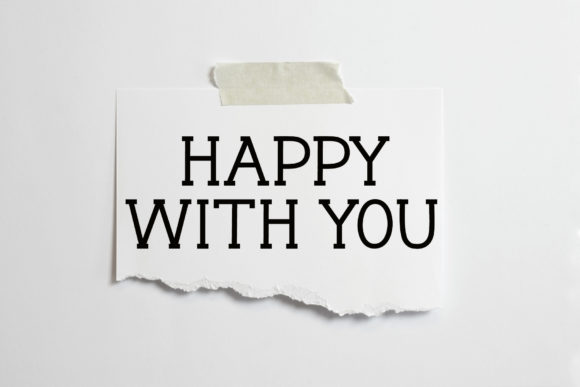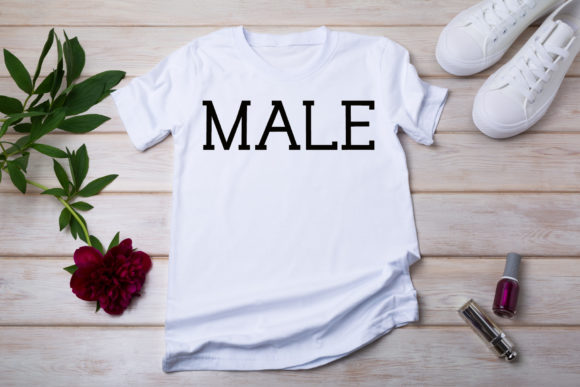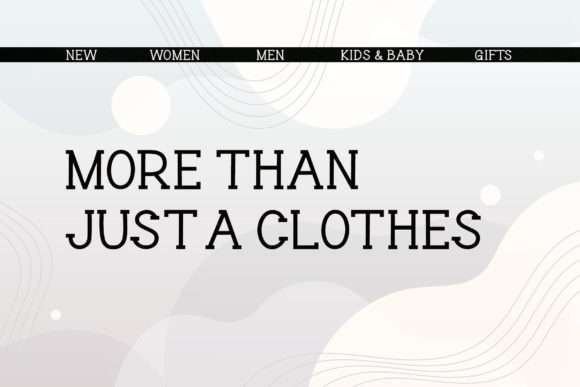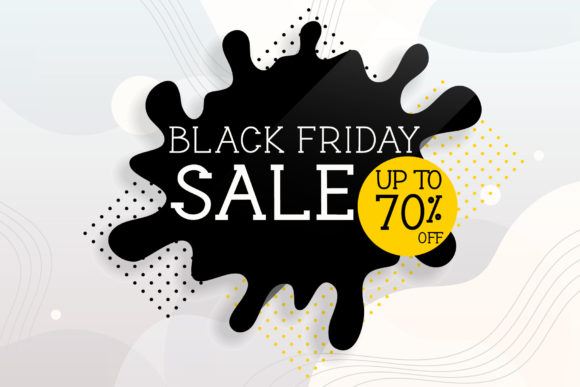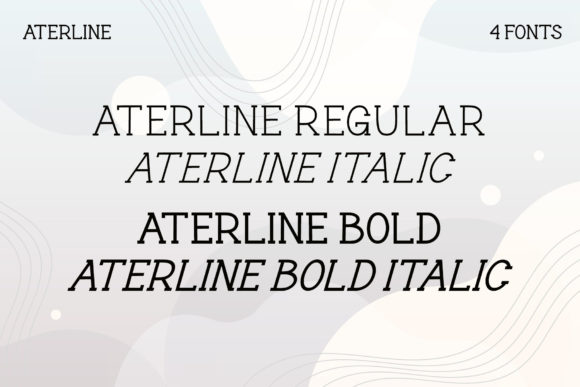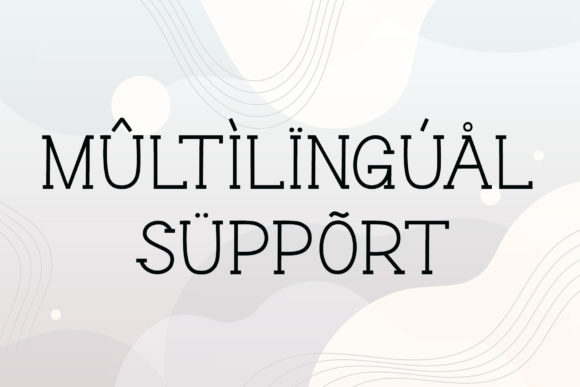
Aterline Font: Elevate Your Crafting Ideas with Elegance
In the world of design, typography plays a crucial role in conveying messages, expressing creativity, and capturing attention. For crafters, designers, and DIY enthusiasts, finding the perfect font can make all the difference in transforming a project from ordinary to extraordinary. This is where Aterline Font comes into play – a simple yet elegant slab serif font designed to elevate a wide range of crafting ideas.
What is Aterline Font?
Aterline is a beautifully crafted slab serif font that exudes simplicity and elegance. Its clean lines, subtle curves, and sturdy serifs make it an excellent choice for various design projects, from cards and branding to labels and more. The font’s versatility allows it to seamlessly adapt to different contexts, ensuring that your creations stand out with a touch of sophistication.
Key Features of Aterline Font
- Simple yet Elegant: Aterline’s design strikes the perfect balance between simplicity and elegance, making it suitable for a wide range of projects.
- Slab Serif: The font’s slab serif style adds a touch of modernity and sophistication, setting it apart from traditional serif fonts.
- Versatile: Aterline can be used confidently in various crafting ideas, including cards, branding, labels, and more.
- Easy to Read: The font’s clear and clean design ensures excellent readability, making it perfect for both digital and print applications.
How to Use Aterline Font in Your Projects
Aterline Font can be incorporated into a variety of projects, including:
- Card Making: Add a touch of elegance to your greeting cards, invitations, and thank-you cards with Aterline.
- Branding: Use Aterline as a logo font or in your brand’s marketing materials to convey a sense of sophistication and professionalism.
- Label Design: Create eye-catching labels for your products, gifts, or storage containers with Aterline’s clean and modern design.
- Digital Design: Incorporate Aterline into your digital projects, such as social media graphics, blog posts, and website headers, to add a touch of elegance.
Tips for Getting the Most Out of Aterline Font
To maximize the impact of Aterline Font in your projects, consider the following tips:
- Experiment with Colors: Pair Aterline with a range of colors to create unique and eye-catching combinations.
- Mix and Match: Combine Aterline with other fonts to create visually appealing contrast and add depth to your designs.
- Play with Sizes: Use Aterline in different sizes to create visual hierarchy and emphasize key messages.
- Keep it Simple: Don’t be afraid to keep your design simple and let Aterline’s elegance shine through.
Aterline Font is a versatile and elegant slab serif font that can elevate a wide range of crafting ideas. Its simplicity, readability, and sophistication make it an excellent choice for designers, crafters, and DIY enthusiasts. By incorporating Aterline into your projects, you’ll add a touch of elegance and sophistication that will leave a lasting impression. So why wait? Download Aterline Font today and let yourself be amazed by the outcome generated.